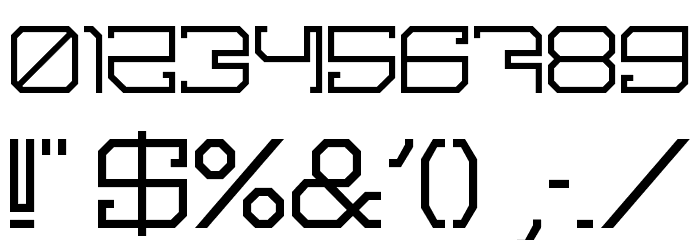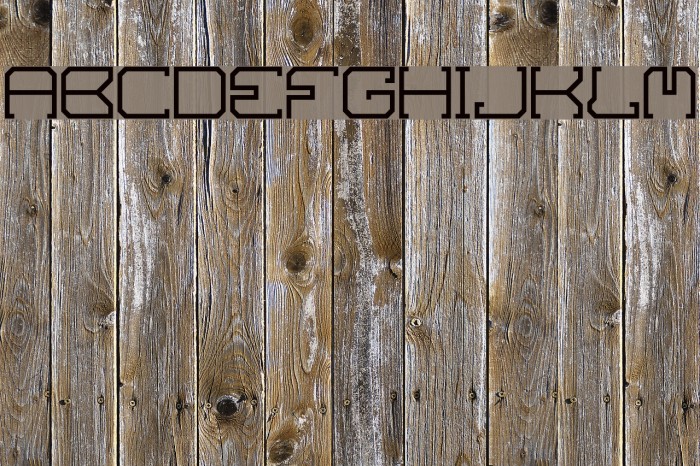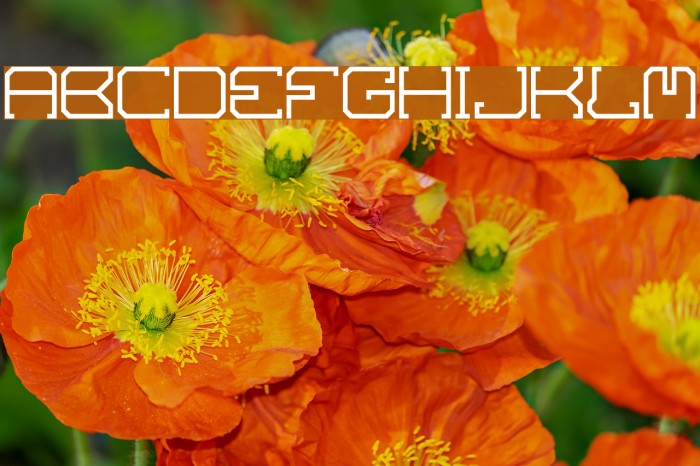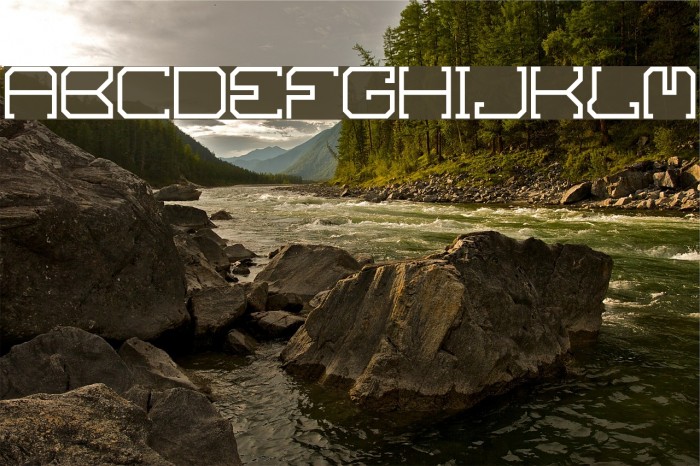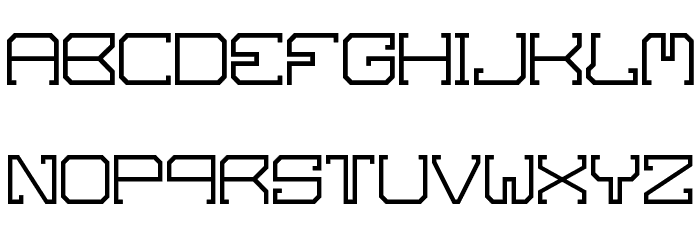
SKOV Font
SKOV Description
This font features a geometric and futuristic design with a distinct, angular style. Each character is composed of straight lines and sharp angles, creating a modern and technical appearance. The uppercase and lowercase letters maintain a consistent height, contributing to a uniform look. The numerals and special characters follow the same design principles, ensuring cohesion across all glyphs. The font's structure is reminiscent of digital or electronic displays, making it suitable for tech-related projects. Its unique style is both eye-catching and functional, ideal for conveying a sense of innovation and modernity.
| Proposed Projects | Ideal for technology branding, digital interfaces, video game titles, and sci-fi themed designs. |